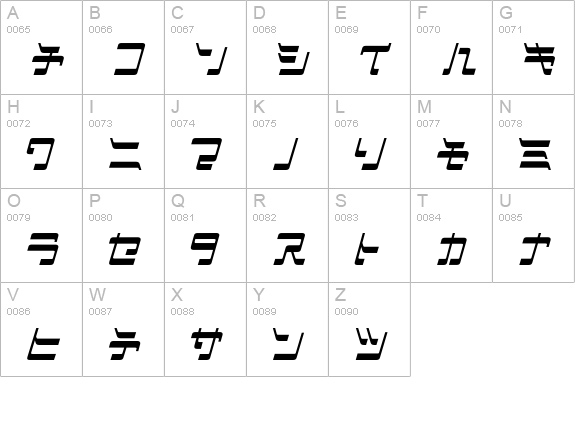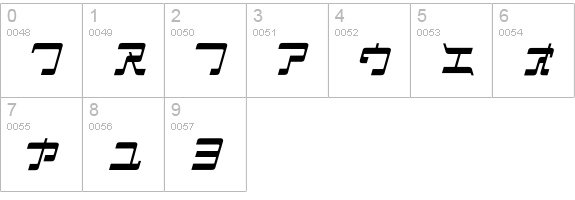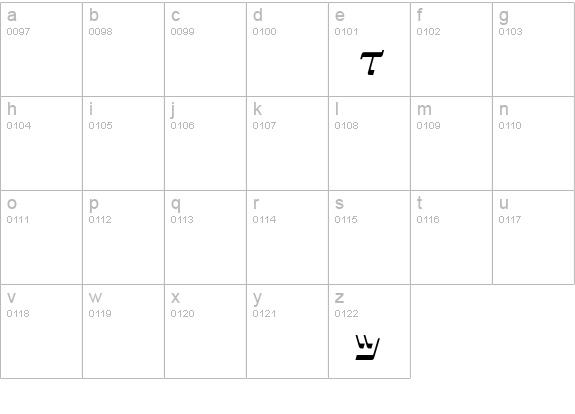
Maniac-KT-Regular Font Details
Maniac-KT-Regular is the standard, neutral variant in the Maniac typeface family \xE2\x80\x94 well suited to general body text, paragraphs, and standard typographic work.
Maniac-KT-Regular is a dynamic and eye-catching font that exudes a sense of energy and excitement. With its bold and playful design, this font is perfect for adding a touch of personality to any project. Featuring clean lines and rounded edges, Maniac-KT-Regular strikes the perfect balance between modernity and whimsy. Its versatile nature allows it to be used for a wide range of purposes, from headlines and logos to posters and social media graphics. One of the best things about Maniac-KT-Regular is that it is free. Yes, you heard that right! This amazing font is freely available to download at FontsMarket.com. Whether you're a professional designer or a hobbyist, you can easily access this font and use it to bring your creative visions to life. With its extensive character set, Maniac-KT-Regular offers support for multiple languages, making it a truly global font. Its legibility ensures that your message is clear and easy to read, while its unique aesthetic adds a touch of flair and individuality. So why wait? Download Maniac-KT-Regular today from FontsMarket.com and let your imagination run wild. Whether you're working on a branding project, creating eye-catching advertisements, or simply adding a fun twist to your personal designs, this font is sure to make a statement. Get ready to unleash your creativity with Maniac-KT-Regular!